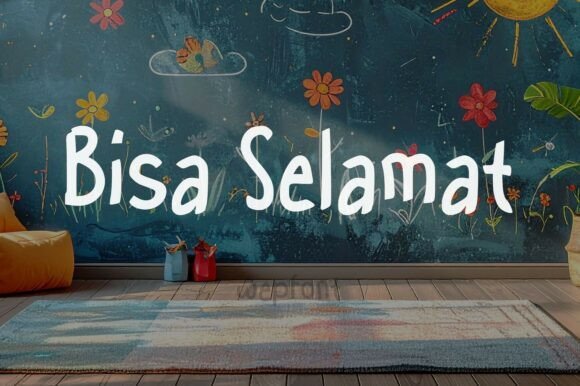
Introducing Bisa Selamat Font: A Beacon of Joy in Design
Who among us hasn’t scribbled notes on a chalkboard, watching the characters come alive in a flurry of white and black strokes? The tactile experience of holding a piece of chalk, feeling the texture of the board beneath our fingers, and listening to the soft scratch of the chalk against the surface is a sensory delight that never gets old. This nostalgic memory is precisely what inspired the creation of Bisa Selamat Font, a handcrafted typeface that captures the essence of a bygone era.
Conveying the Indonesian phrase “Be Safe,” Bisa Selamat Font is more than just a design element – it’s an invitation to step into a world of optimism, cheer, and delightful subtlety. With its striking strokes and inviting chalk-like texture, this font is a valuable addition to any designer’s toolkit, perfect for bringing a burst of joy to apparel designs, children’s storybooks, and educational content.
- Font Family: Bisa Selamat is a custom-designed font family, specifically created for Indonesian language support.
- Unique Characteristics: Bisa Selamat Font features a unique blend of traditional and modern elements, making it an ideal choice for Indonesian language materials that require a touch of local flavor.
Bisa Selamat Font Review
Overall, I think Bisa Selamat Font has some great qualities, but it also has some limitations. Let’s dive in and explore both sides.
- The font is clean and modern, making it perfect for any contemporary design project.
- It’s highly legible, even at smaller font sizes, which is great for body text or titles.
- The font family is quite extensive, offering a range of weights and styles to suit different design needs.
- The font’s lack of nuance in its italic styles can make it look a bit awkward in certain contexts.
- Some of the font’s weights can feel a bit inconsistent, which might affect the overall visual flow of your design.
Despite its limitations, I think Bisa Selamat Font is a solid choice for designers looking for a clean and modern font. While it may not be perfect, it’s definitely worth considering for your next project.
The Bisa Selamat Font is ideal for use in signage, wayfinding systems, and other applications where clear and concise communication is essential.
For optimal results, use the font in conjunction with a sans-serif font for body text.